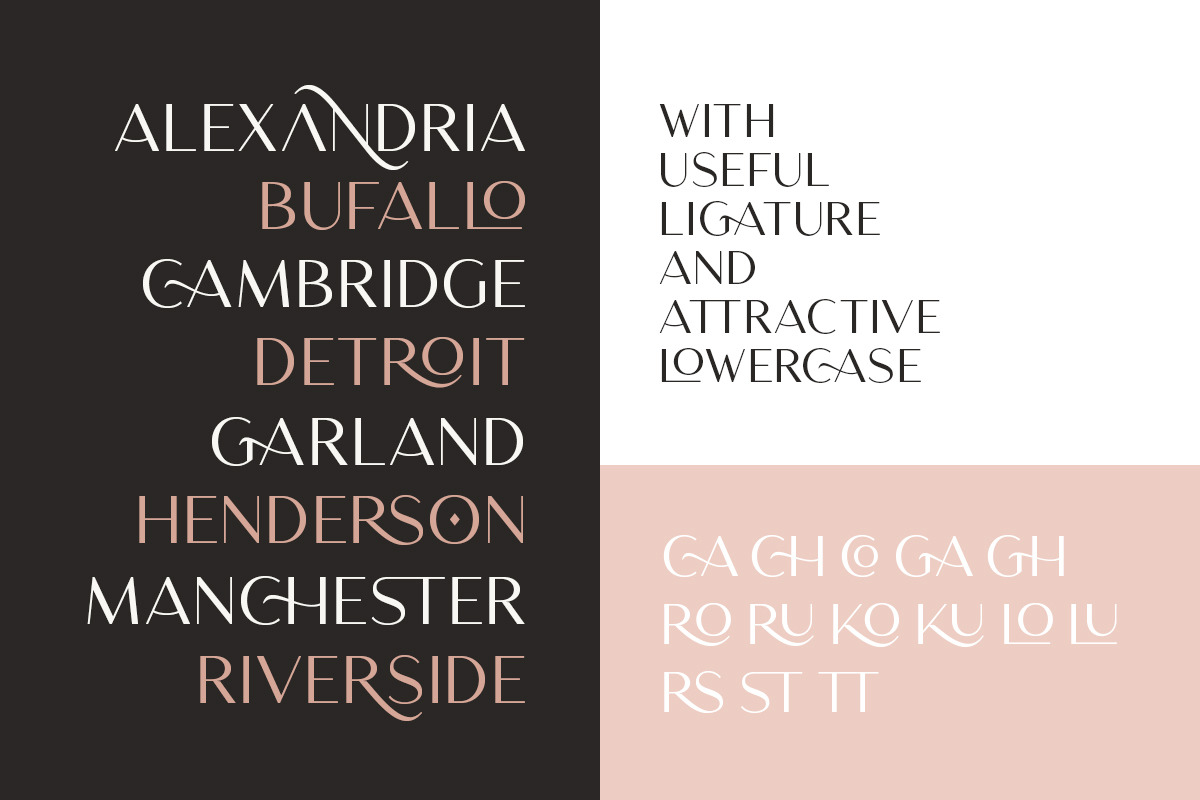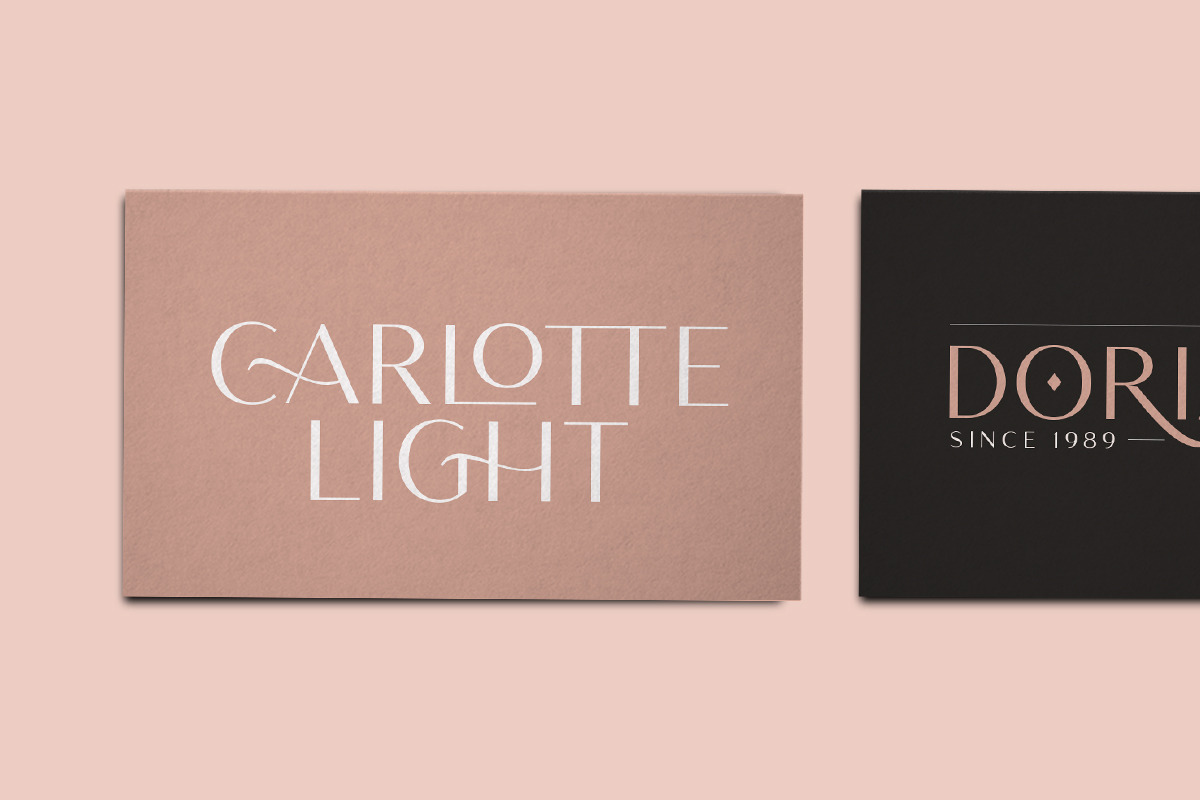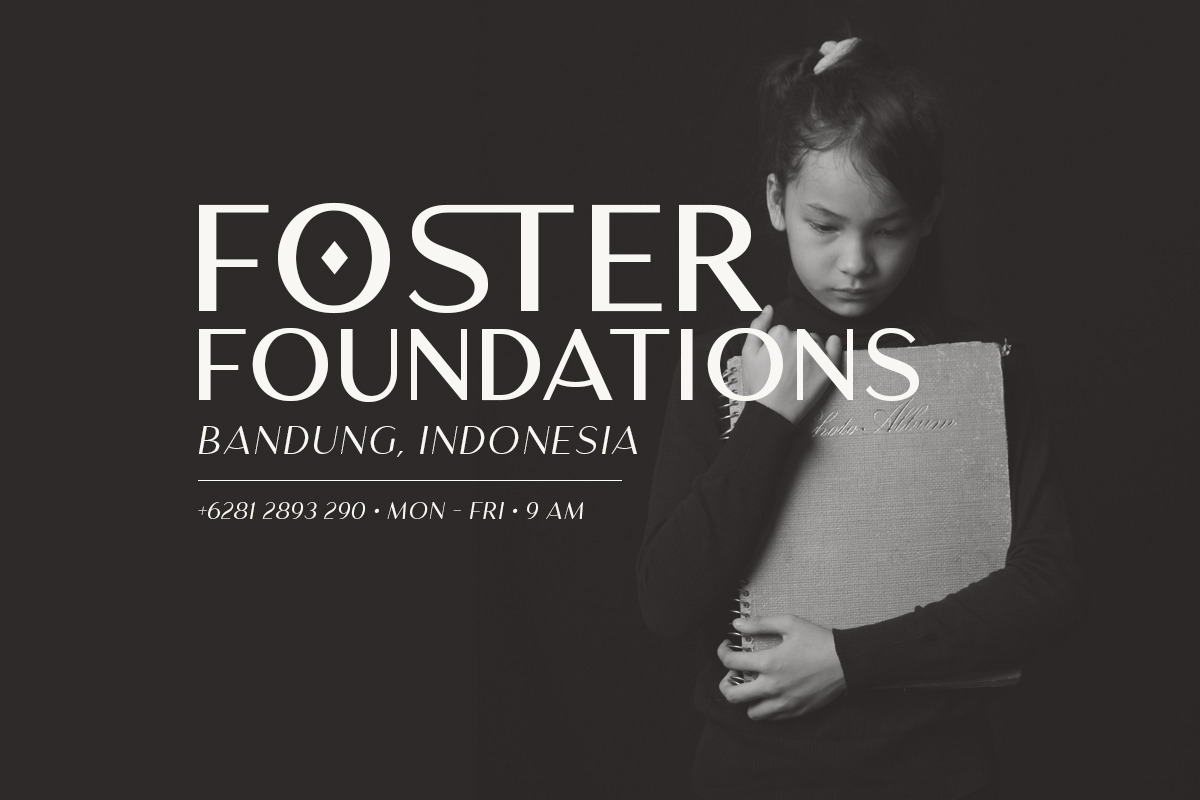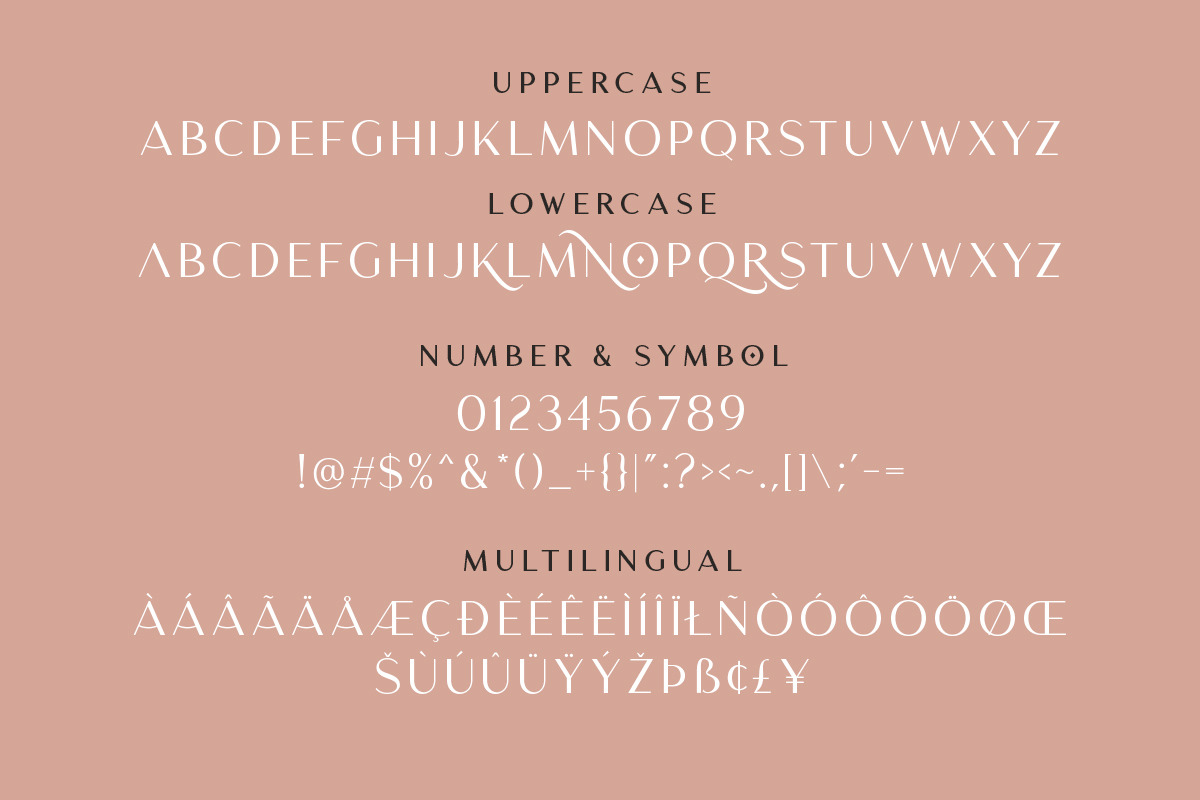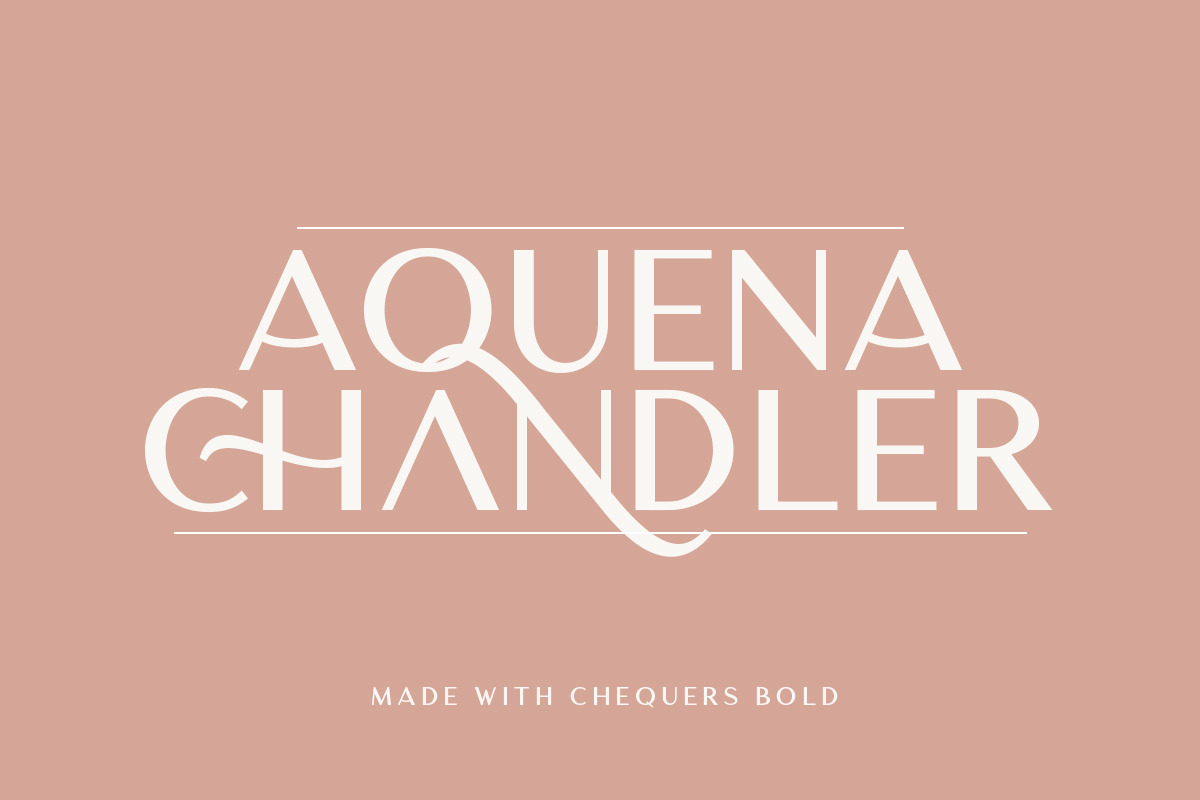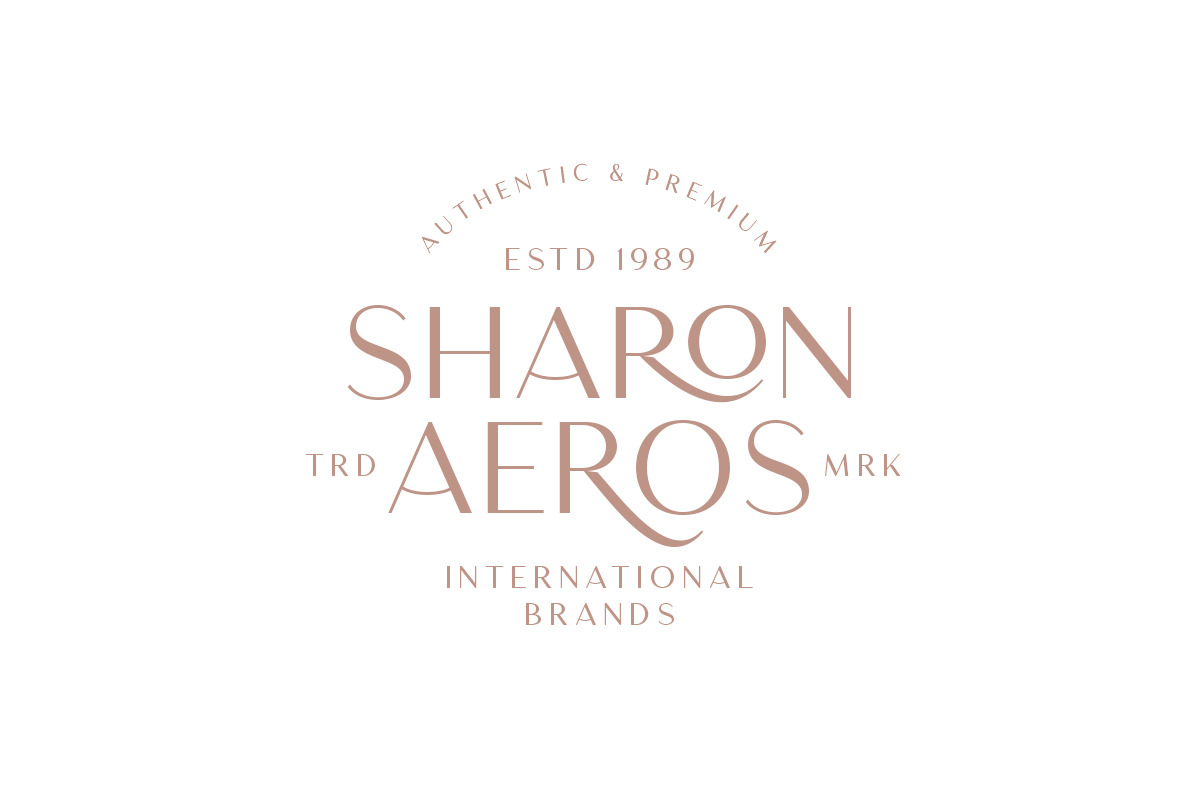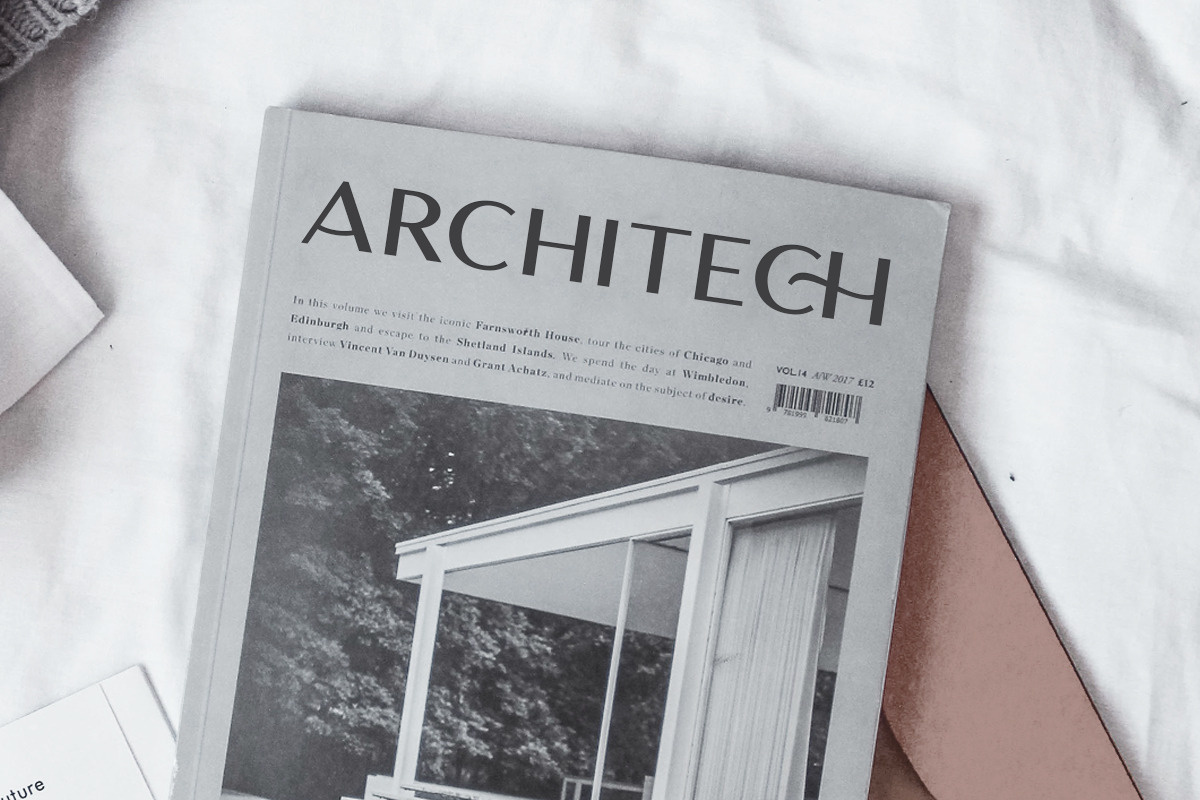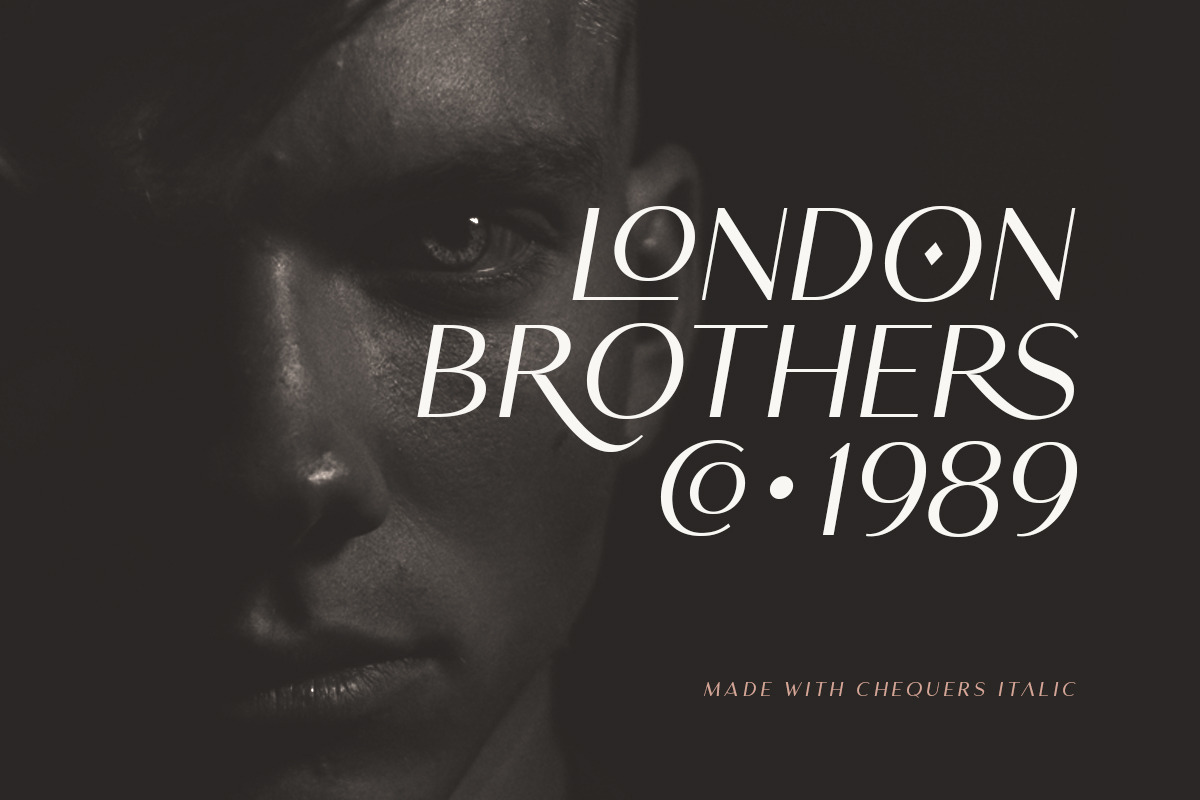
Chequers - Modern Sans Serif
Introducing, Chequers - Modern Sans Serif with a bunch of ligatures!
Chequers is a classic and modern sans serif with a unique uppercase and lowercase. This font contains a bunch of essential ligatures that will make your presentation or logo even more stunning and stand out! With four style that you can use for several purpose! This fonts support Multi Language and already PUA Encoded!
- All Caps with Unique Uppercase and Lowercase
- Multi language